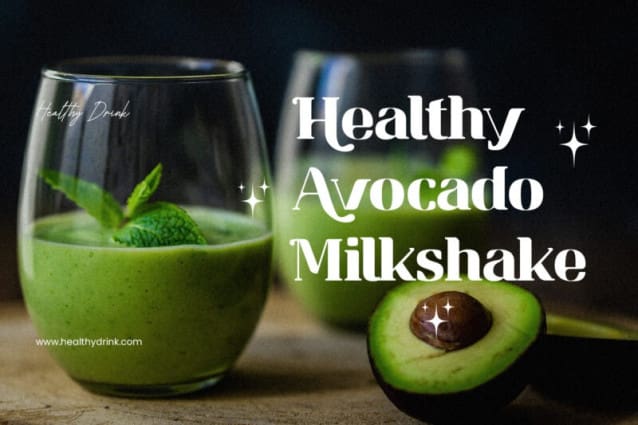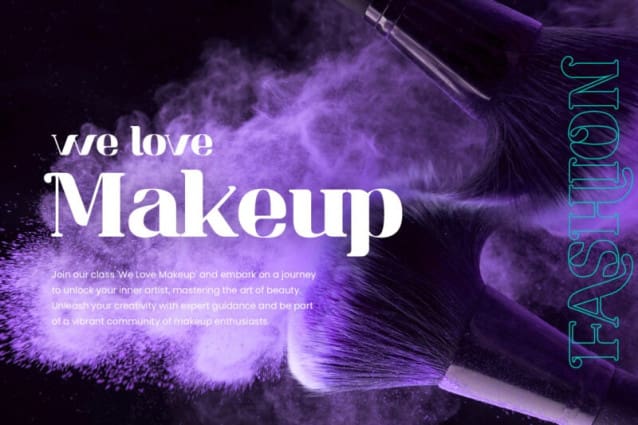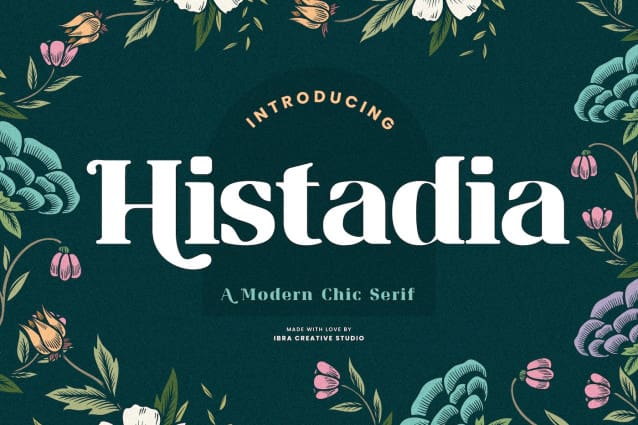
Histadia Font
Histadia Font is a strikingly modern chic serif typeface that seamlessly blends timeless elegance with contemporary aesthetics. Its graceful, high-contrast letterforms exude sophistication and versatility, making it an ideal choice for a wide range of design projects. The font’s crisp lines and refined serifs convey a sense of refined luxury, while its clean, minimalist detailing ensures legibility and impact in both print and digital applications.
Histadia Font captures the essence of classic serifs while embracing a modern sensibility, making it a versatile choice for those seeking a harmonious balance between tradition and innovation in typography.